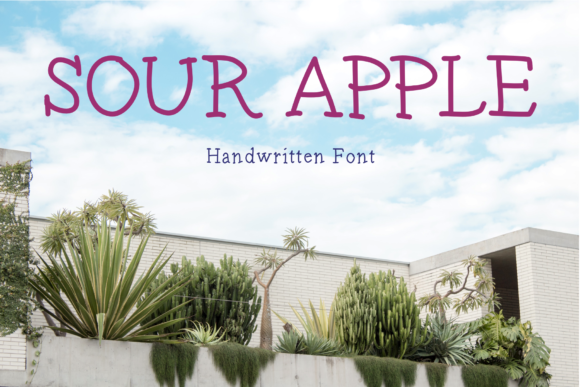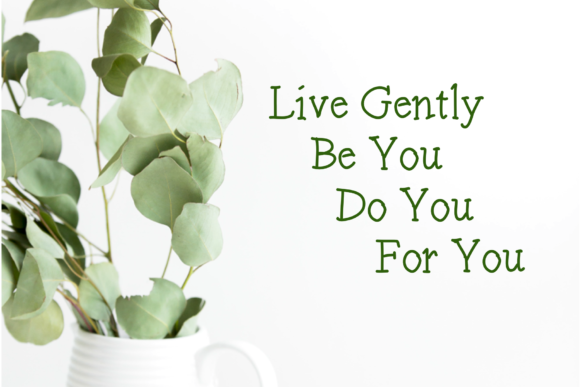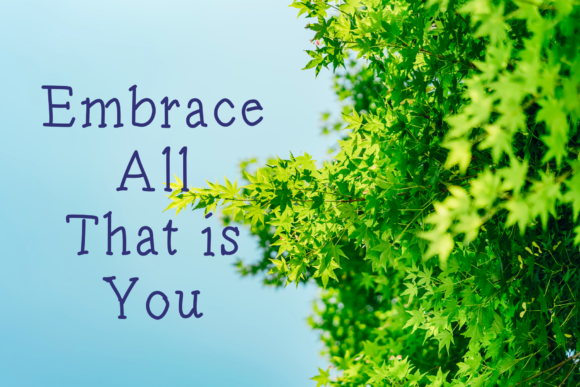
Sour Apple Font
About Sour Apple Font
Sour Apple is a font that exudes sweetness and friendliness, making it a perfect choice for a wide variety of design projects. Its natural and unique style enhances various creations, adding a touch of handwritten allure that captivates the eye.
With its sweet and friendly nature, Sour Apple brings a sense of warmth and approachability to your designs. Whether you’re working on invitations, branding materials, social media graphics, or any other project, this font elevates each creation with its delightful charm.
Sour Apple’s handwritten essence adds a personal and authentic touch to your designs, making them feel warm and genuine. It’s like a friendly companion that infuses your creative ideas with a sense of comfort and familiarity.
Incorporating Sour Apple into your designs allows you to explore a wide range of creative possibilities. Its natural and unique style serves as a canvas for your imagination, empowering you to create visually stunning and captivating designs.
Moreover, Sour Apple’s versatility ensures that it harmonizes effortlessly with various design themes and styles. Whether you’re aiming for a modern and minimalist look or a whimsical and playful vibe, Sour Apple adapts seamlessly, making it a valuable asset for your creative toolkit.
The only limit with Sour Apple is your imagination. Let it be the font that sparks your creativity and sets your ideas free. Explore the endless possibilities it offers, and watch as your designs come alive with a touch of sweetness and friendliness.
In summary, Sour Apple is more than just a font; it’s a sweet and friendly companion that enhances your designs with its natural and unique style. Embrace its beauty and notice how it transforms your creative ideas into delightful works of art. With Sour Apple, your imagination knows no boundaries, and your designs become true expressions of warmth and charm that leave a lasting impact on all who encounter them. Let Sour Apple be the font that adds a touch of magic to your designs, creating a world of wonder and excitement that captures the hearts of your audience.